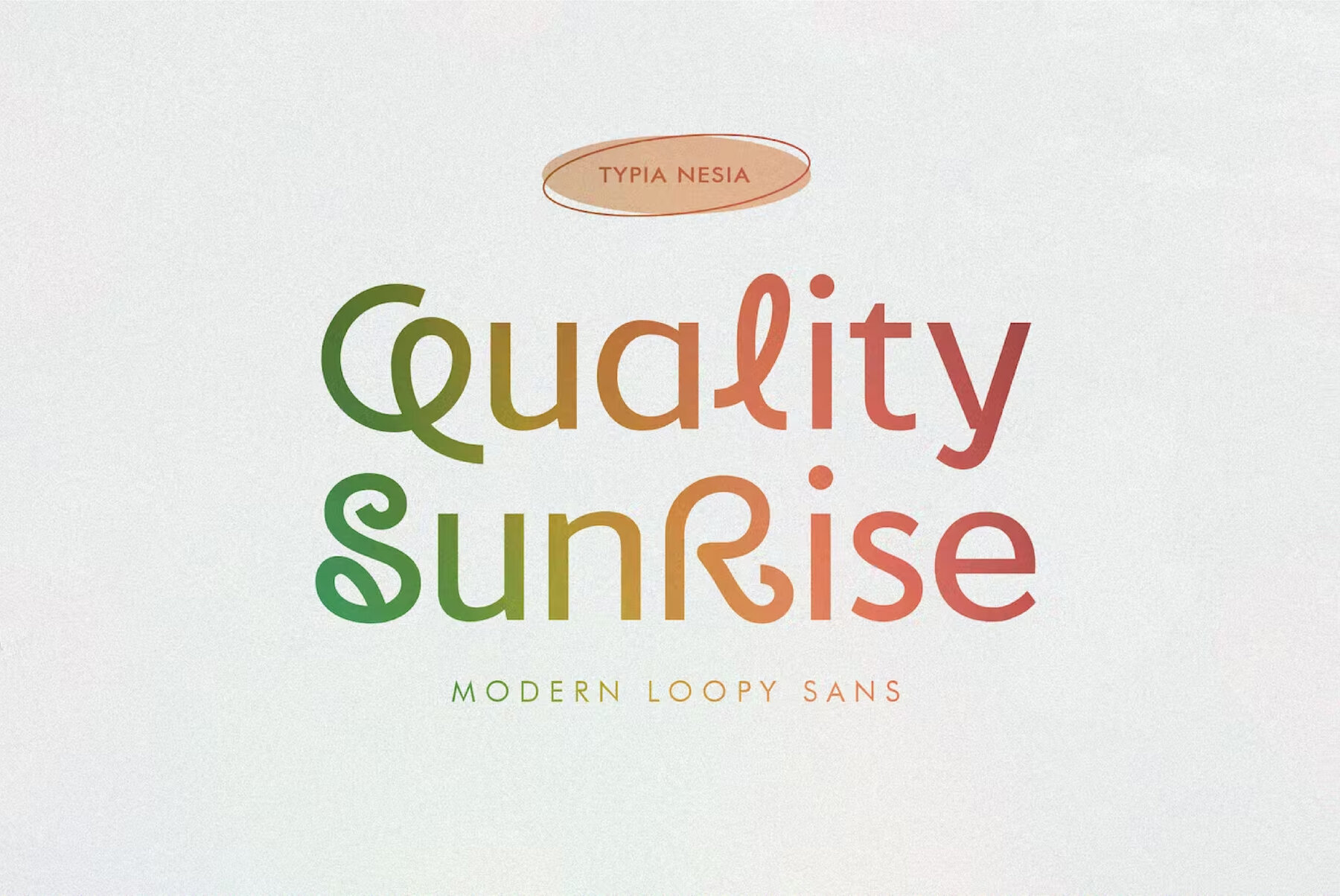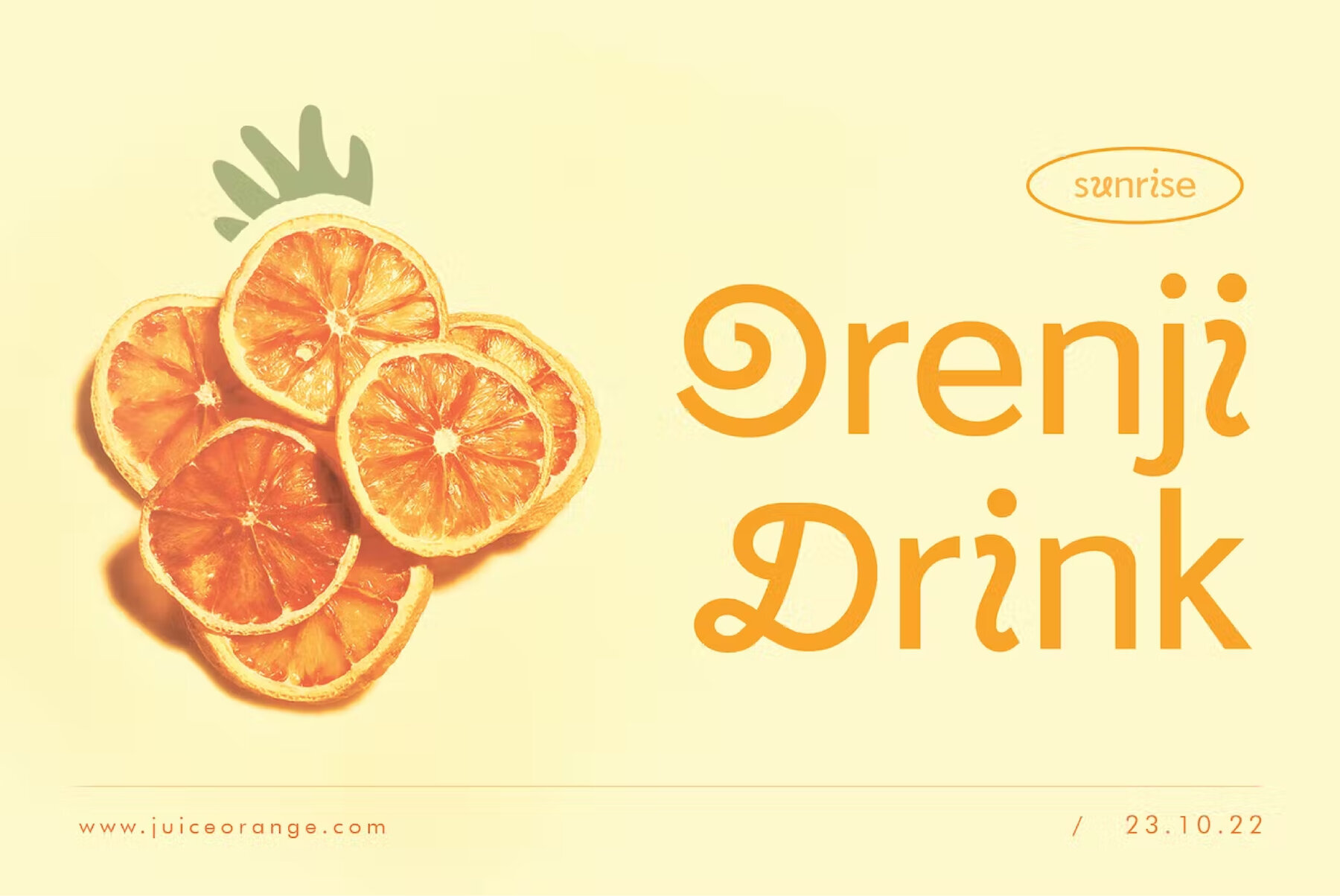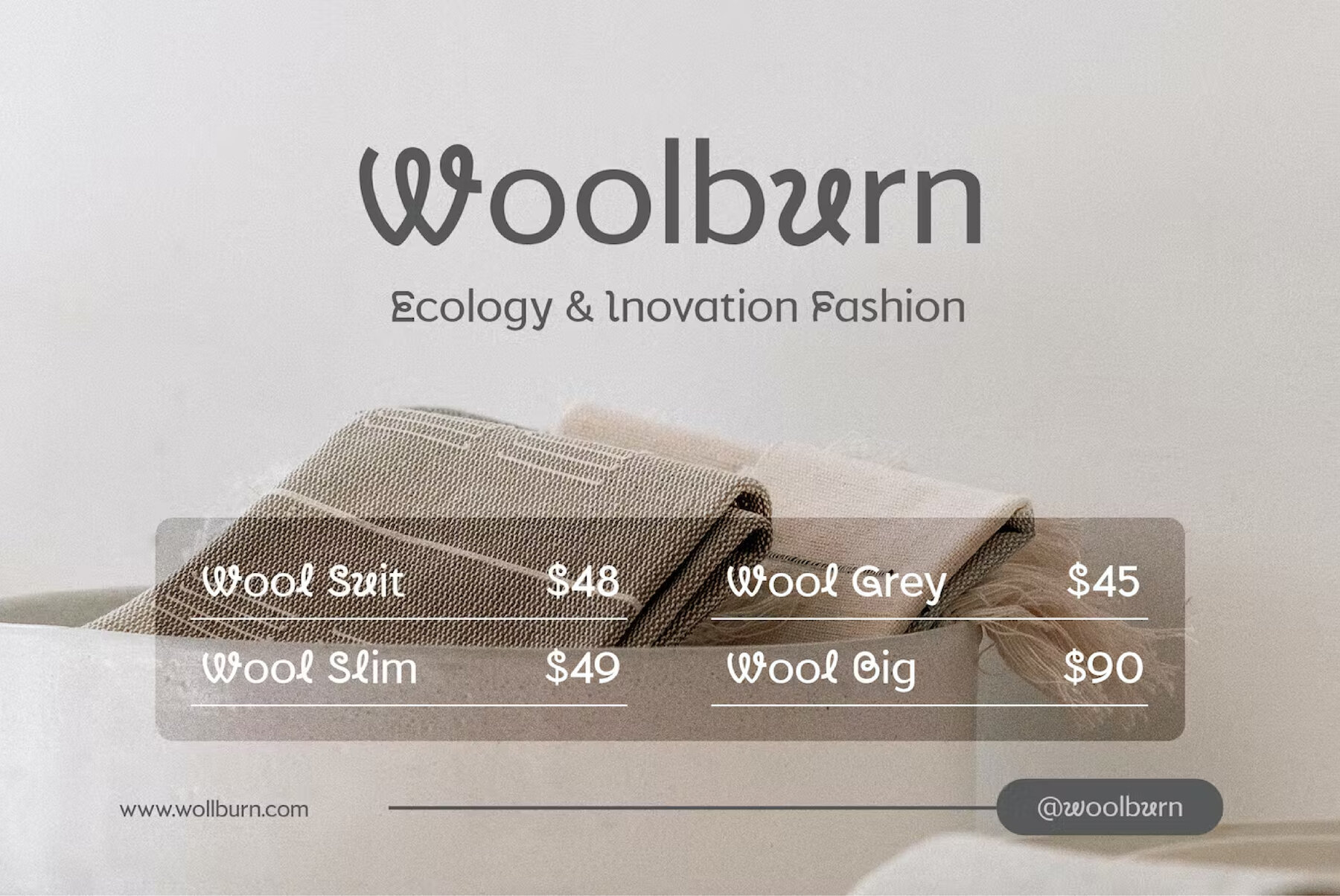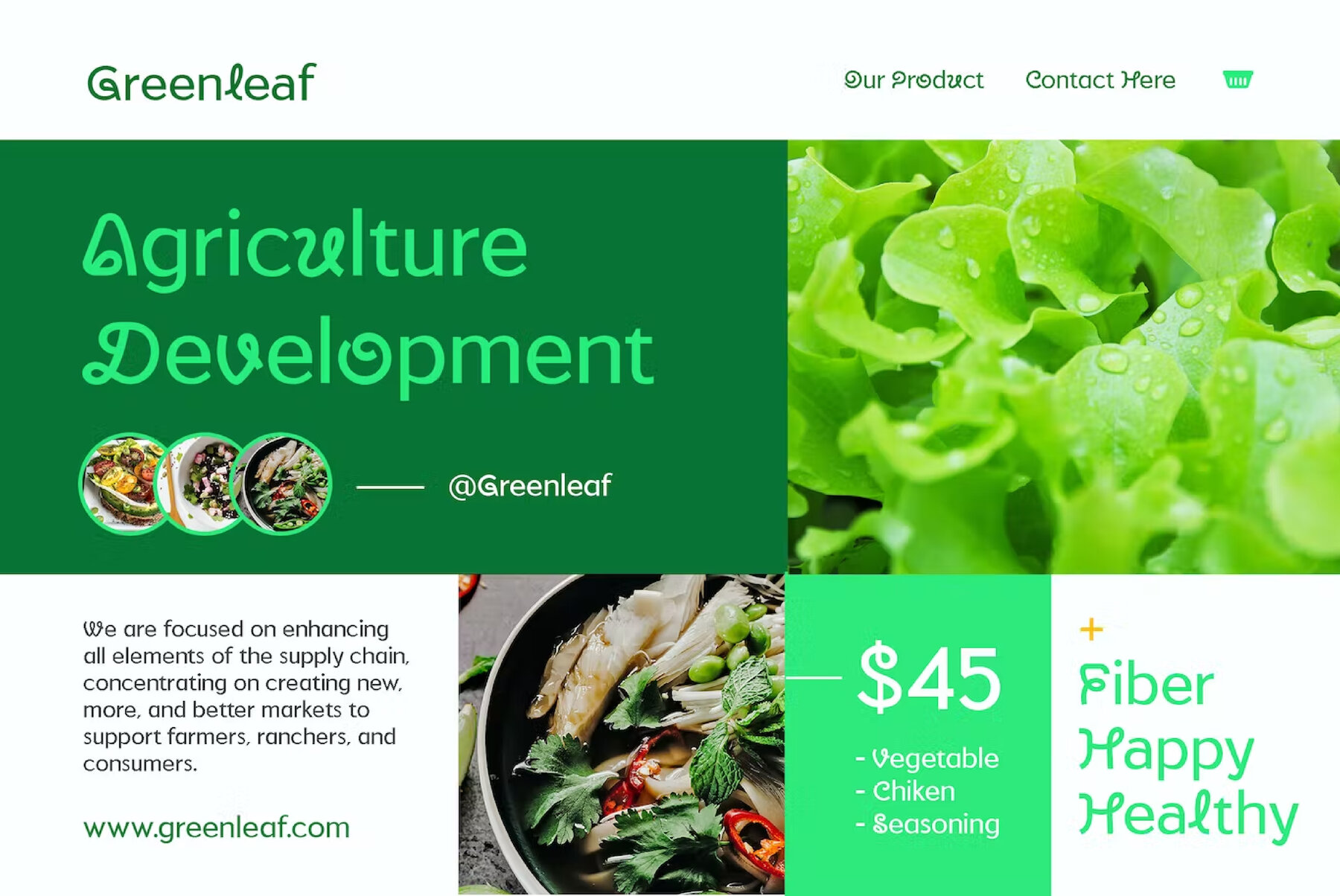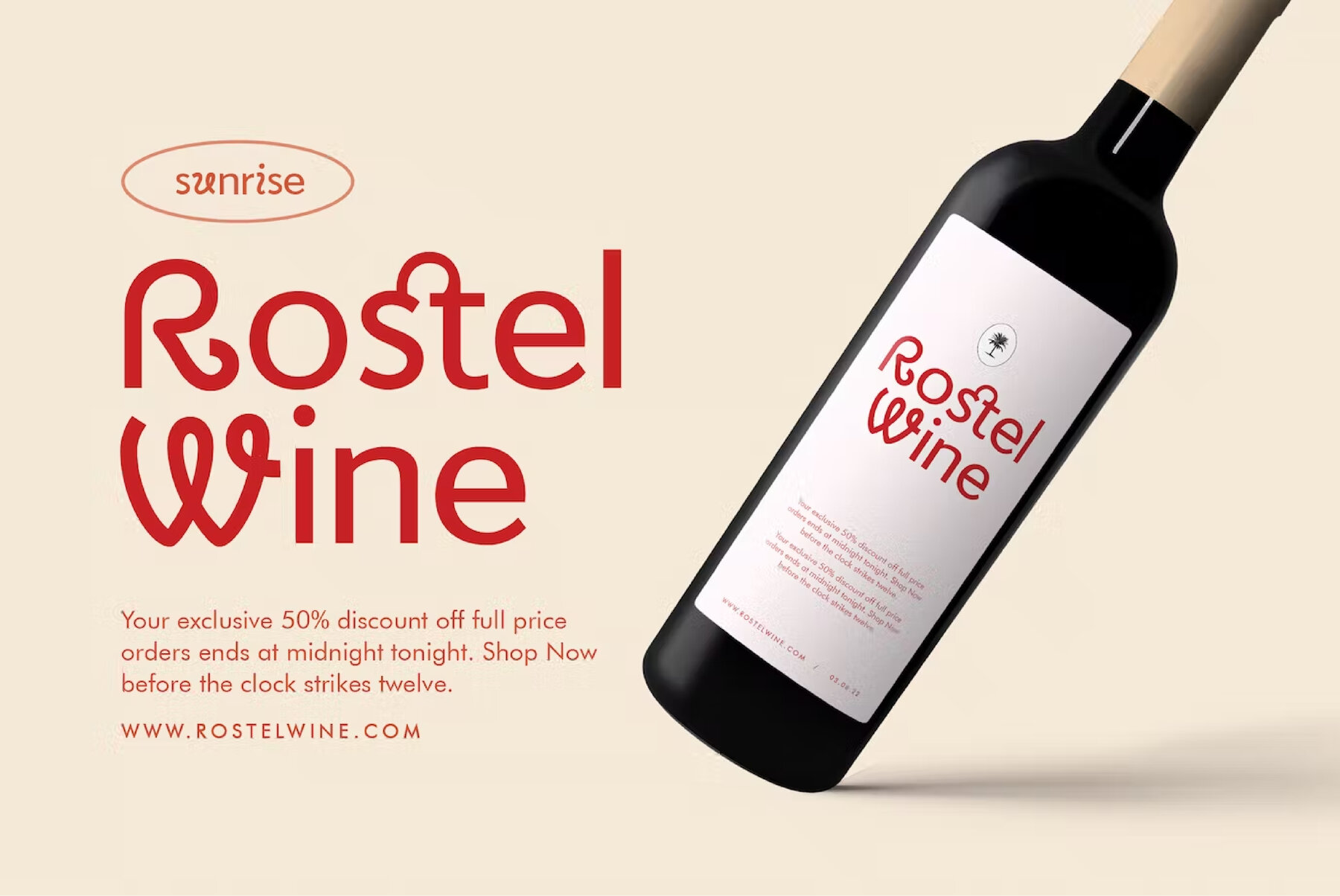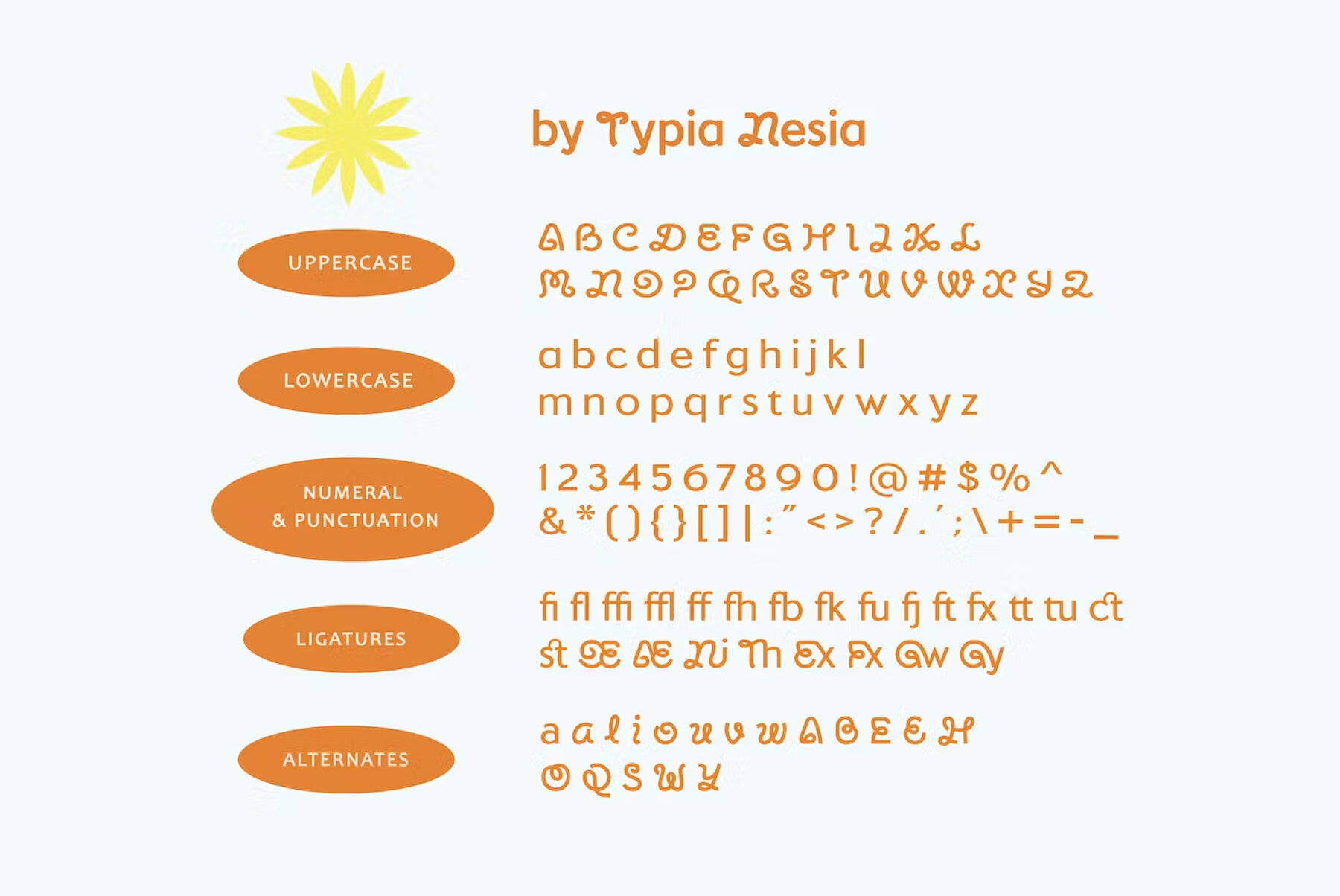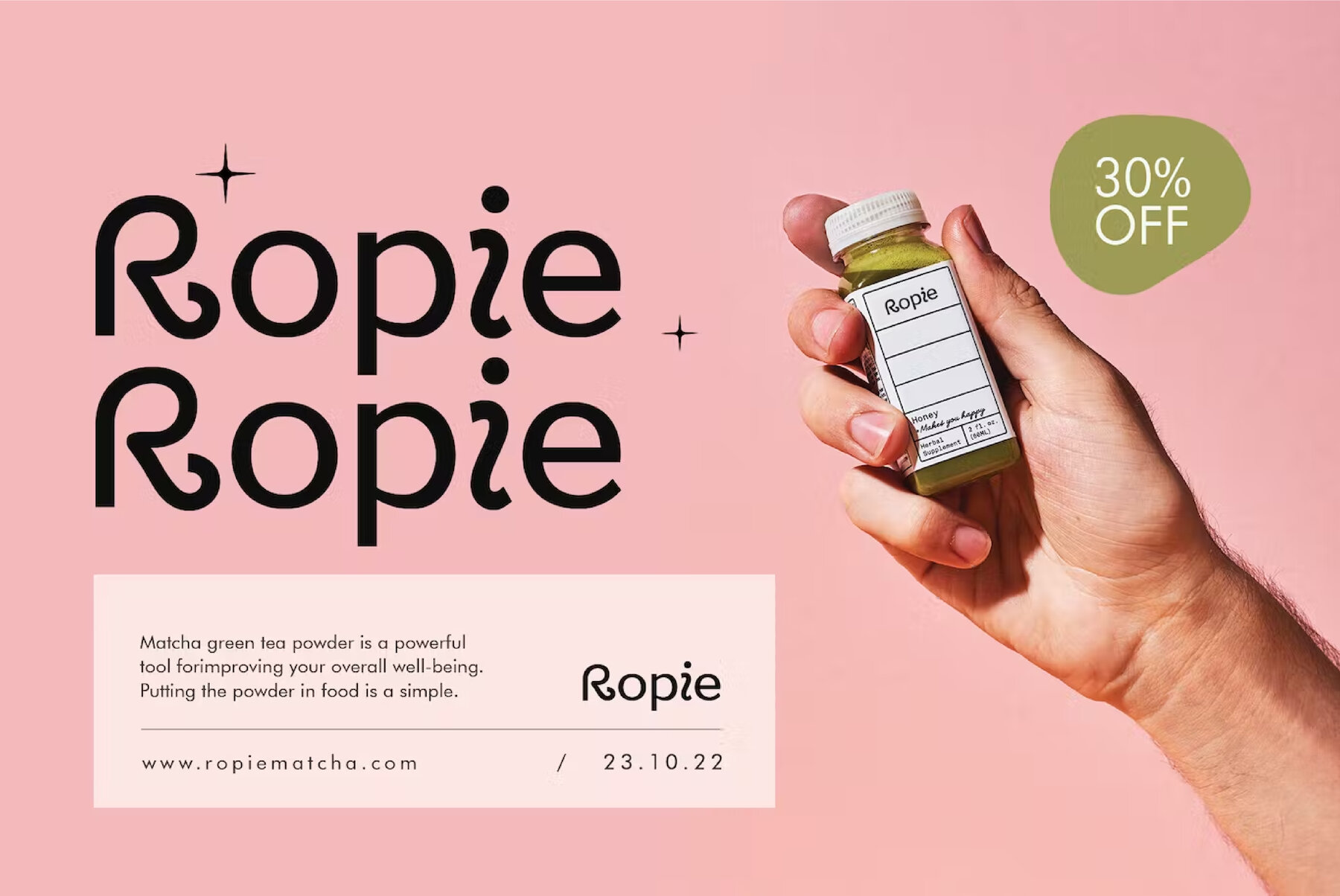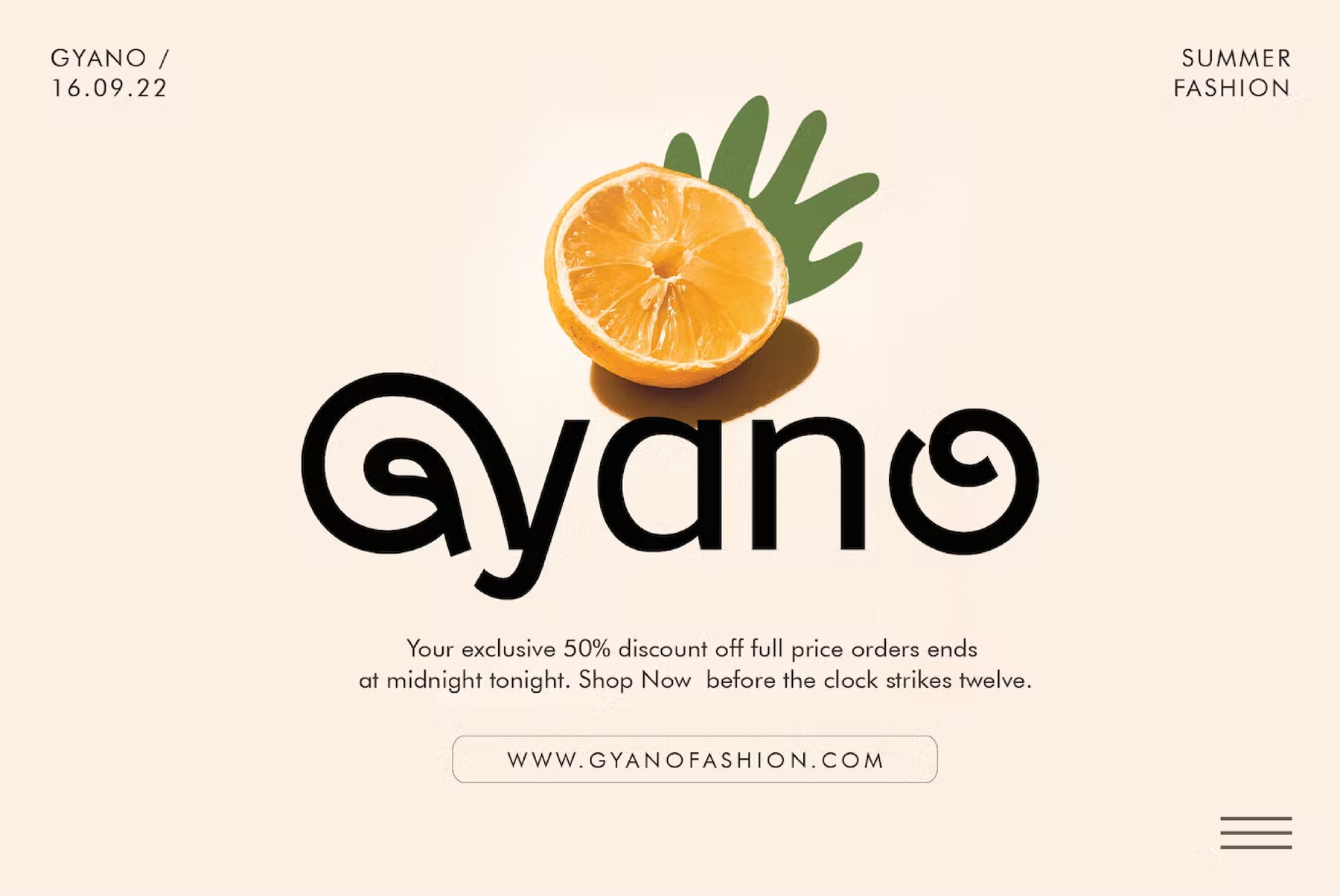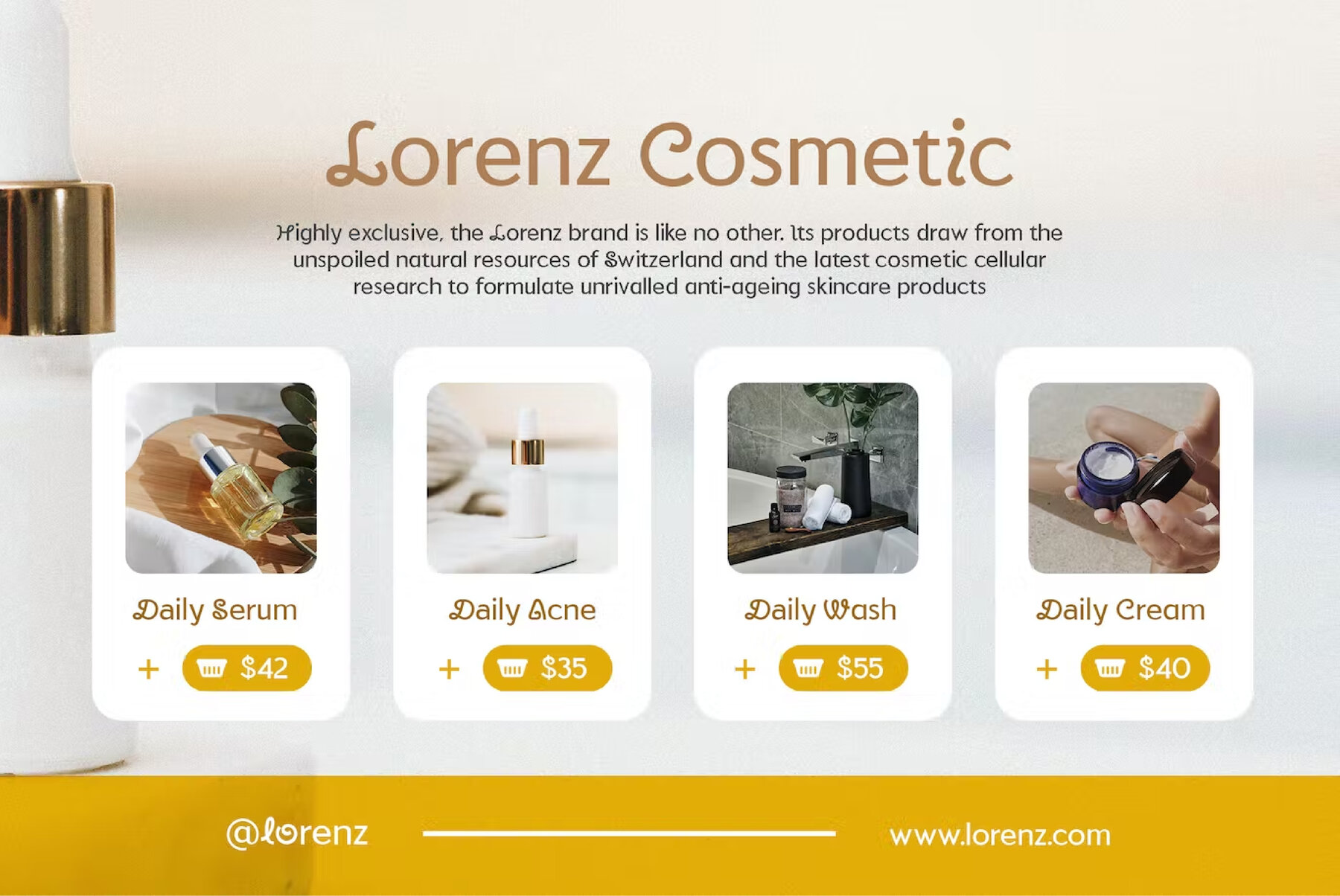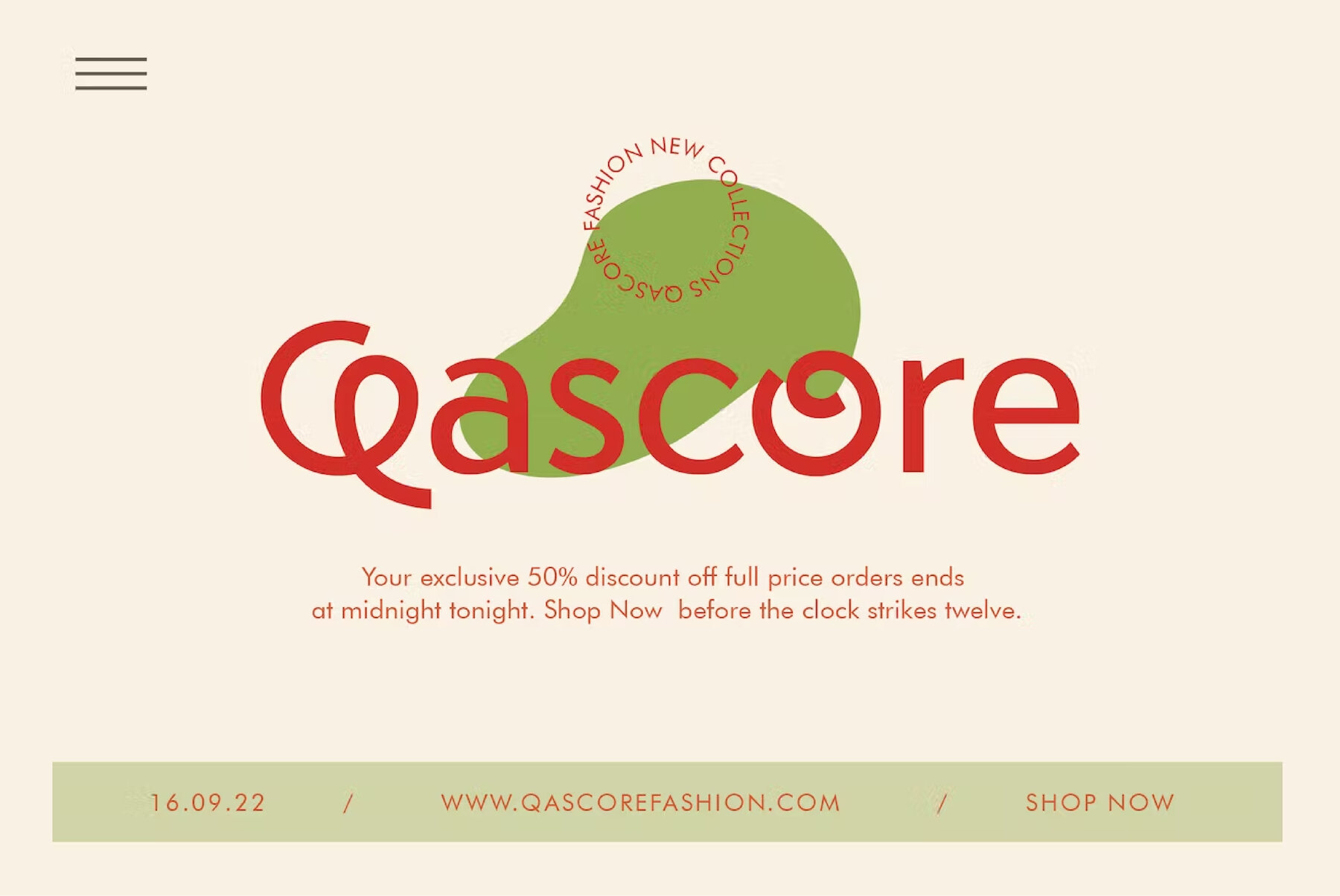
Quality Sunrise Font
Quality Sunrise Regular
Introducing Quality Sunrise, a modern loopy sans serif font that brings a playful and fun touch to any design. This unique display font is perfect for creating logos, editorial designs, stationery, game graphics, techno/gadget brands, digital music posters, app startups, advertising campaigns, art quotes, home decor, book/cover titles, special events, and so much more.
With its distinctive character and energetic style, Quality Sunrise is the go-to font for projects that need a touch of whimsy and originality. Let your creativity shine through with this captivating and vibrant typeface.